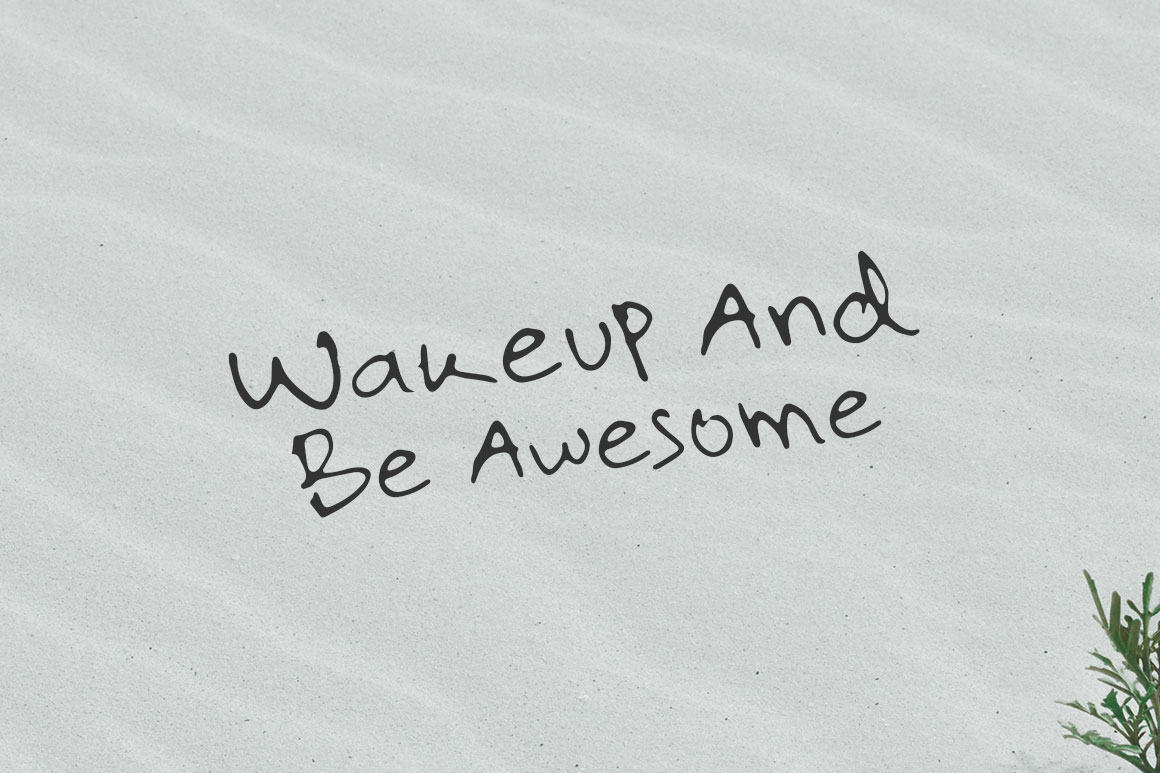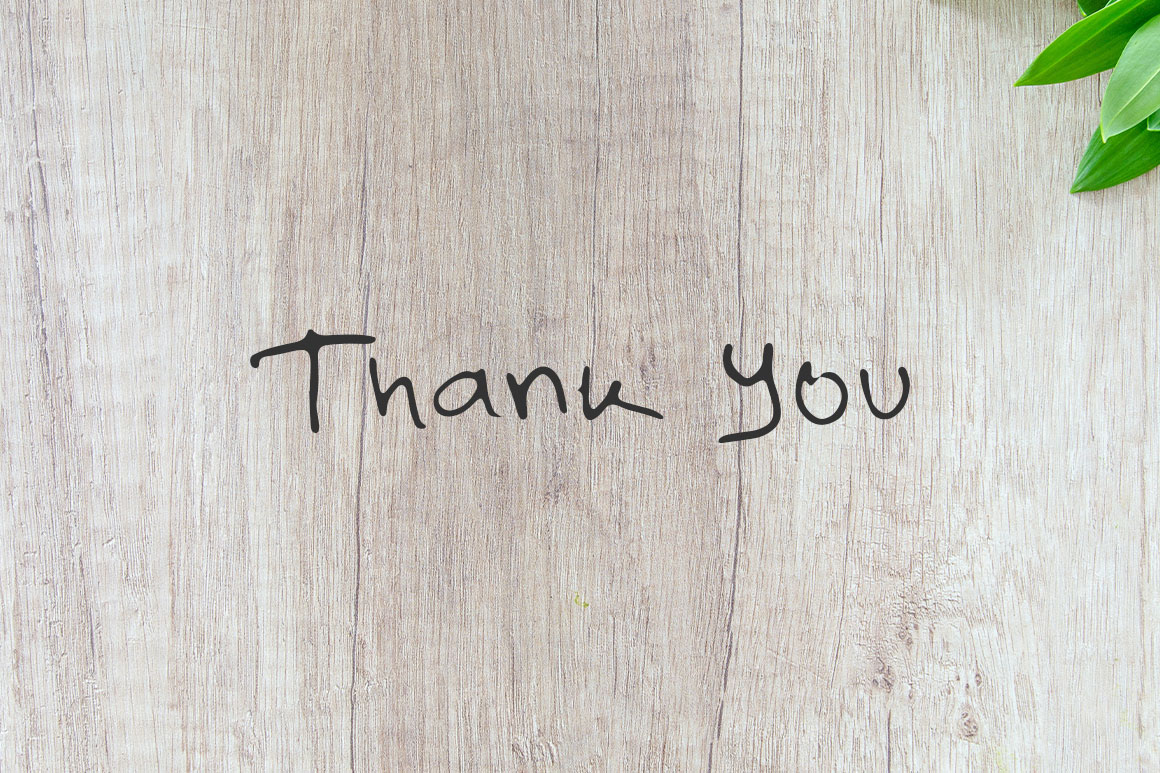
Deshinta Free Font
Deshinta Free Font is a casual and tasteful display font. Clean and a little bit quirky, this font is the perfect fit for all of your logos, branding, social media, and crafty DIY projects.